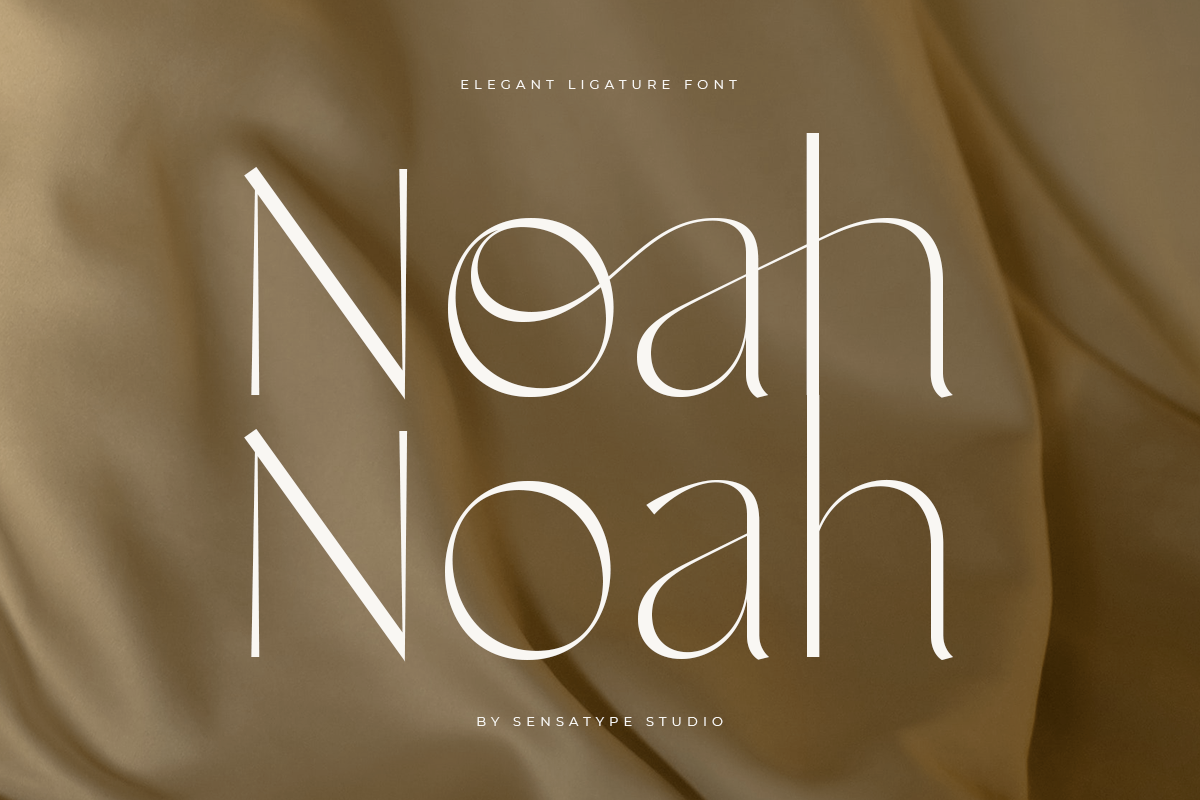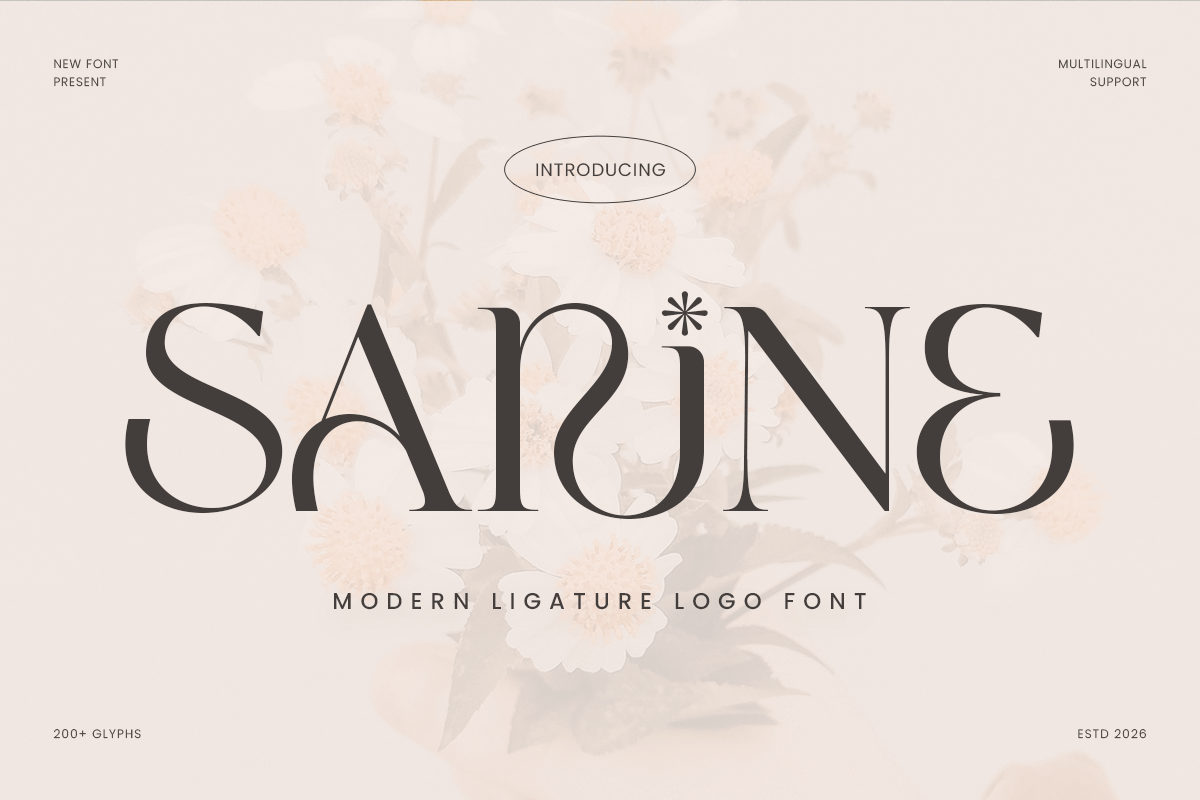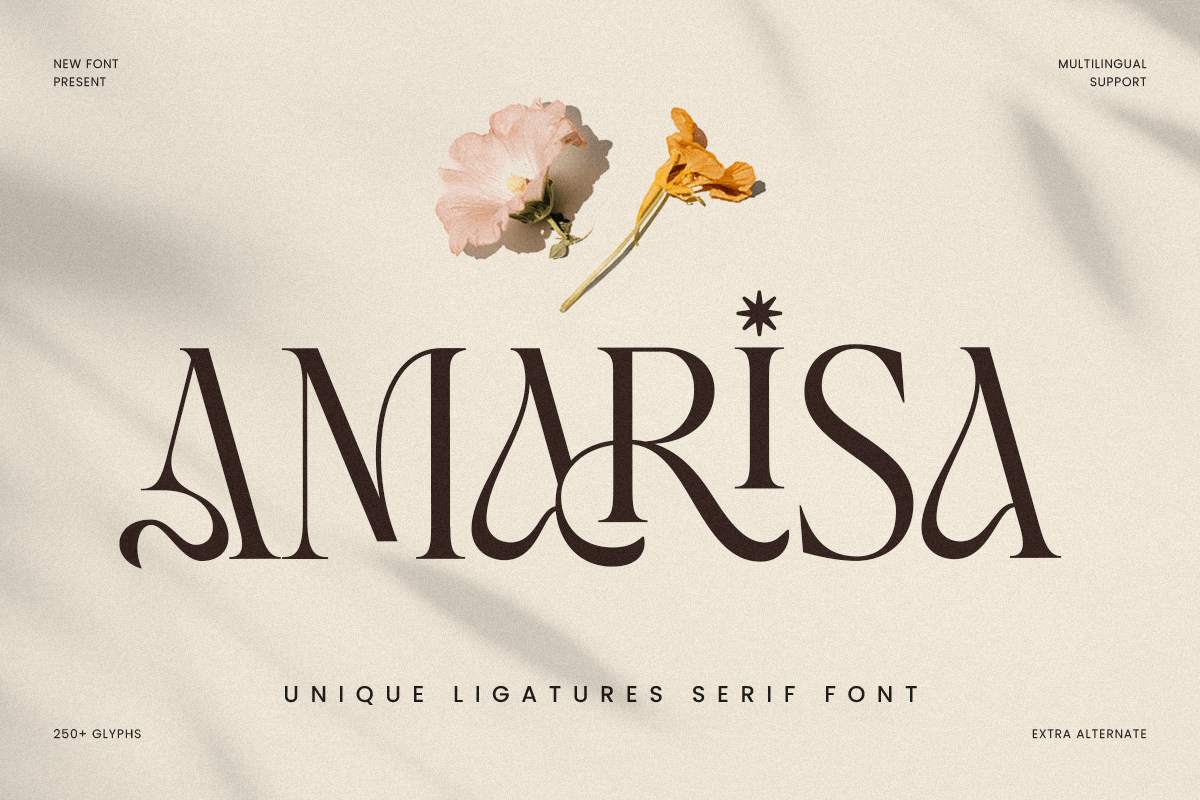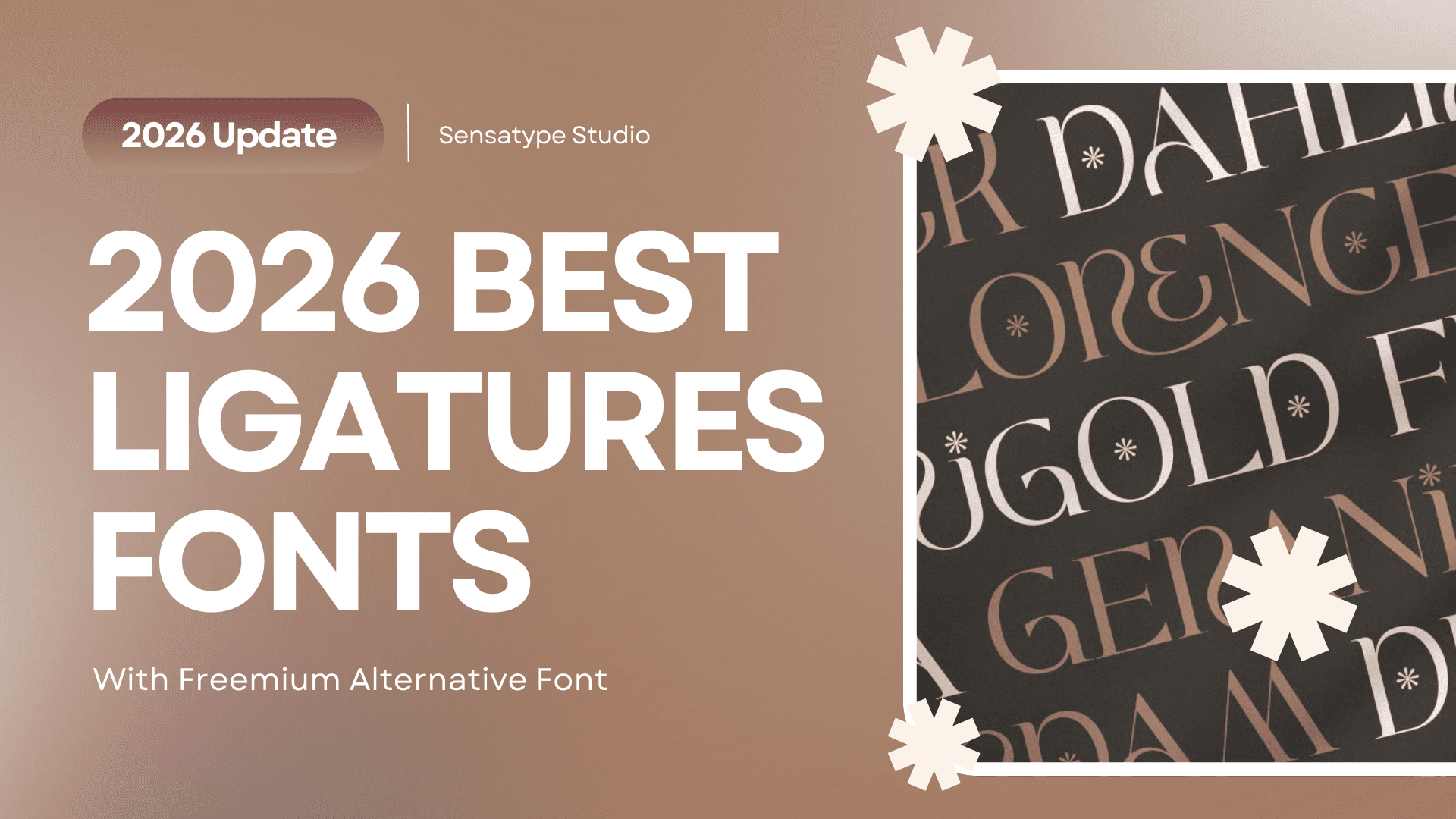
Best Ligature Fonts
Ligature fonts combine two or more letters into a single elegant character, creating smoother and more distinctive typography. In this article, discover some of the best ligature fonts that designers use for logos, branding, and modern editorial layouts to achieve a refined and professional look.
Best Ligature Fonts
A ligature in typography is a written or printed character consisting of two or more characters or letters joined into one symbol. Another definition states that a ligature is a glyph that merges the shapes of particular orders of characters into a brand-new form. It functions to generate a harmonious reading experience.
In the realm of typography and writing, a ligature takes place when two or more graphemes (letters) unite to create a single glyph. The notable examples may include the characters of æ and œ as used in English and French.
Ligatures are not only used for readability but also as a stylistic element in modern type design. Many contemporary fonts include custom ligatures that connect specific letter pairs in creative ways. These connections add elegance, personality, and uniqueness to typography.
Why Use a Ligature Font?
Ligature fonts, with their unique ability to combine letters into single, beautifully interconnected forms, provide an extra layer of elegance and complexity to written communication. These fonts are not just about aesthetics, they're about enhancing readability and adding character to every word.
When it comes to creating memorable logos, sleek branding, or modern editorial layouts, ligature fonts offer a perfect blend of style and sophistication. Whether you're designing a brand logo, invitations, packaging, editorial design or setting the tone for a website, the right ligature font can elevate your work from ordinary to extraordinary.
So in this article, we’ll explore the best ligature fonts from Sensatype Studio. Whether you’re designing for luxury brands, fashion labels, or high-end websites, these fonts bring elegance, personality, and refinement to your work.
5+ Best Ligature Fonts
Noah - Elegant Ligature Font
Noah is a modern branding font designed with elegant ligature combinations that enhance visual identity. The typeface includes a variety of alternate characters and stylistic ligatures, giving designers flexibility when creating logos or headlines. Its clean structure and refined letterforms make it suitable for branding, logo design, and premium packaging. The carefully crafted ligatures allow designers to build distinctive wordmarks that feel modern and sophisticated.
Catchy Mager - Fancy Ligature Font
Catchy Mager is an modern & fancy font with modern and unique ligatures. It is perfect for branding, wedding invites and cards, and maybe for some project. This is perfect for branding and logo design. You will get classy, elegant, and certainly unique logos with this font.
Ginger - Modern Stylish Font
Ginger is designed for brands that want their typography to stand out. The font includes distinctive characters and unique ligature combinations that add personality and creativity to text. Because of its flexible design, Ginger can be used for logo design, branding projects, product packaging, and modern editorial layouts.
Sarine - Modern Ligature Logo Font
Sarine is a modern classy ligature logo font crafted to deliver refined elegance with a clean, contemporary edge. Designed with smooth ligature connections and balanced letter proportions, this typeface creates a sophisticated rhythm that feels premium, stylish, and instantly brand-ready.
Amarisa - Unique Ligatures Serif Font
Amarisa is a unique ligatures serif font designed to bring refined elegance and distinctive character to modern typography. With graceful serif details and beautifully crafted ligature combinations, this typeface creates a premium visual tone that feels stylish, sophisticated, and instantly brand-ready.
When choosing the best ligature font, designers should consider readability, character alternatives, and stylistic balance. A good ligature font enhances the design without making the text difficult to read. The best ones offer multiple ligature combinations that allow designers to experiment and create unique typographic compositions.
Ligature fonts offer designers a powerful way to create typography that feels elegant, refined, and distinctive. By merging letterforms into harmonious shapes, these fonts improve visual flow while adding personality to text. Whether you are designing logos, branding systems, editorial layouts, or luxury packaging, ligature fonts can elevate the overall visual experience.